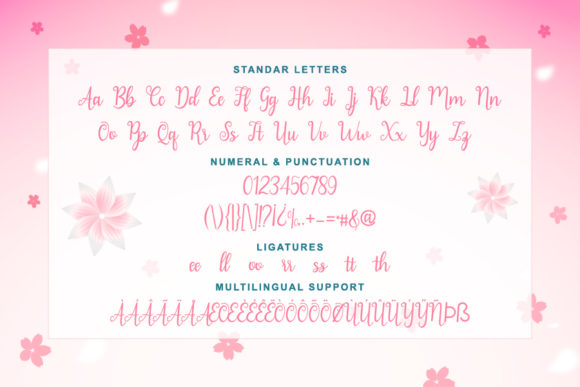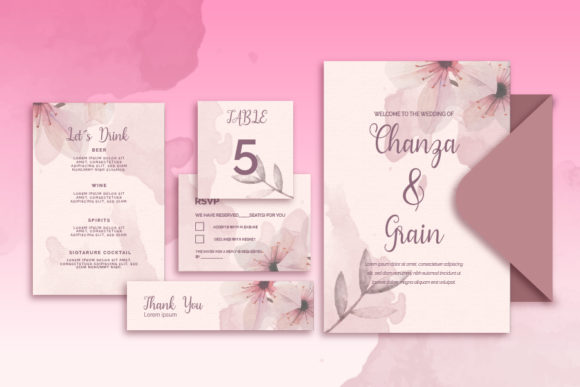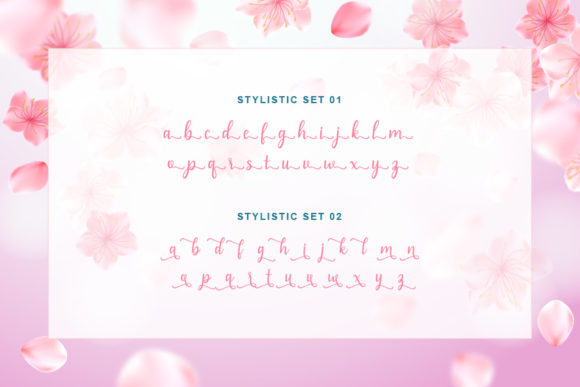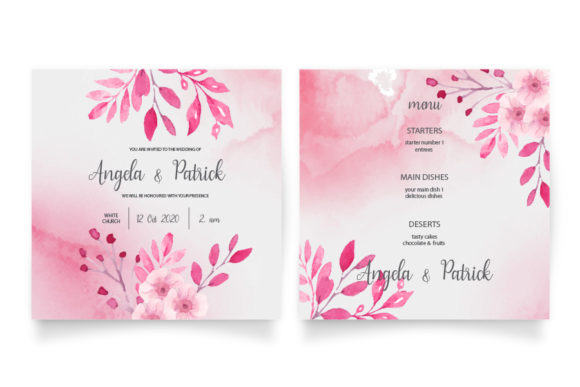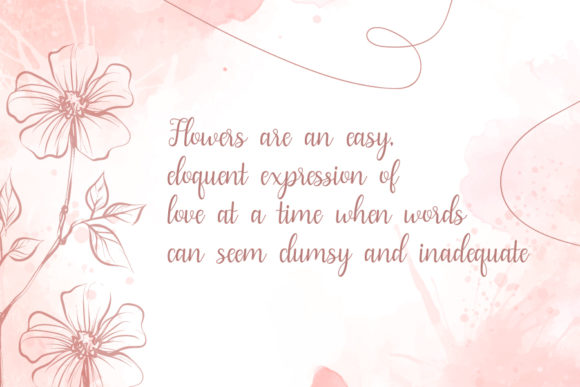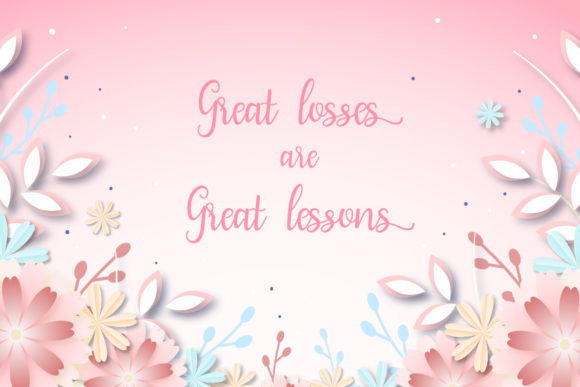
Introducing Corellina Font: Elevate Your Designs with Elegance and Flair
In the world of typography, few fonts manage to capture the essence of elegance and sophistication as beautifully as Corellina Font. This stunning script font has been turning heads with its incredible flowing lines, making it a top choice for designers and crafters looking to add a touch of class to their projects. Whether you’re working on wedding invitations, thank you cards, quotes, greeting cards, logos, or business cards, Corellina Font is sure to impress.
The Characteristics of Corellina Font
So, what makes Corellina Font stand out from the rest? Here are some of its key features:
- Varying Baseline: Corellina Font boasts a unique varying baseline that gives it a natural, handwritten feel. This characteristic makes it perfect for designs that require a personal touch.
- Smooth Lines: The font features smooth, flowing lines that exude elegance and sophistication. These lines are carefully crafted to create a beautiful, fluid look that’s perfect for a wide range of designs.
- Gorgeous Glyphs: Corellina Font comes with a range of gorgeous glyphs that add to its beauty and versatility. These glyphs can be used to create stunning designs that are sure to capture attention.
- Stunning Alternates: One of the standout features of Corellina Font is its stunning alternates. These alternates provide designers with a range of options, allowing them to create unique and eye-catching designs.
Why Designers and Crafters Love Corellina Font
Corellina Font has quickly become a favorite among designers and crafters, and for good reason. Here are some reasons why:
- Elegance: Corellina Font is incredibly elegant, making it perfect for designs that require a touch of sophistication.
- Versatility: The font can be used for a wide range of designs, from wedding invitations to logos and business cards.
- Easy to Read: Despite its elegant and flowing lines, Corellina Font is easy to read, making it perfect for designs that require a clear and concise message.
- Customizable: With its range of alternates and glyphs, Corellina Font is highly customizable, allowing designers to create unique and eye-catching designs.
Using Corellina Font in Your Designs
So, how can you use Corellina Font in your designs? Here are some ideas to get you started:
- Wedding Invitations: Corellina Font is perfect for wedding invitations, adding a touch of elegance and sophistication to your designs.
- Thank You Cards: Use Corellina Font to create beautiful thank you cards that are sure to impress.
- Quotes: Corellina Font is a great choice for quotes, adding a touch of elegance and flair to your designs.
- Greeting Cards: The font is perfect for greeting cards, allowing you to create beautiful and eye-catching designs.
- Logos: Corellina Font can be used to create stunning logos that are sure to capture attention.
- Business Cards: Use Corellina Font to create elegant and sophisticated business cards that are sure to impress.
In conclusion, Corellina Font is a stunning script font that is sure to elevate your designs with its elegance and flair. With its varying baseline, smooth lines, gorgeous glyphs, and stunning alternates, Corellina Font is perfect for a wide range of designs, from wedding invitations to logos and business cards. Whether you’re a designer or crafter, Corellina Font is a great choice for anyone looking to add a touch of sophistication to their projects.